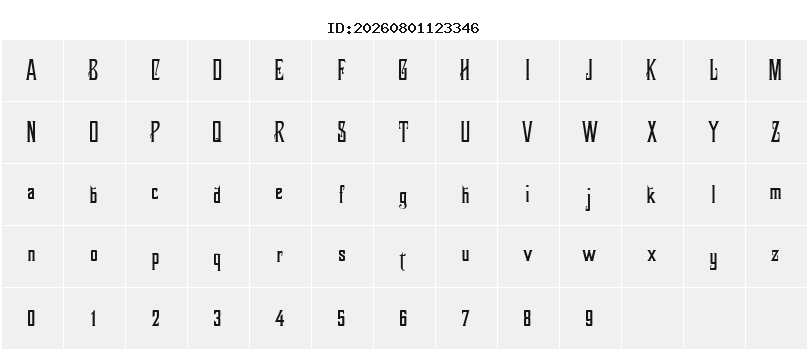
• Font Name: LHF Ambrosia
• Font ID: LHF Ambrosia
• Full Font Name: LHF Ambrosia
LHF Ambrosia.ttf is a modern, elegant sans-serif font designed for ultimate readability and visual harmony. Perfect for branding, headlines, web design, and print materials.